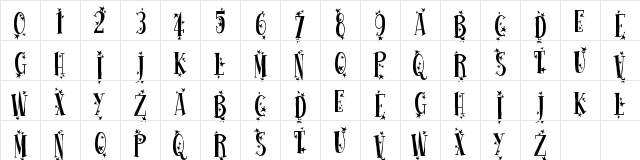
Happy New One Regular
Design Context for Happy New One Typeface
Happy New One is a composed and adaptable typeface that performs quietly and consistently across a wide range of design contexts.